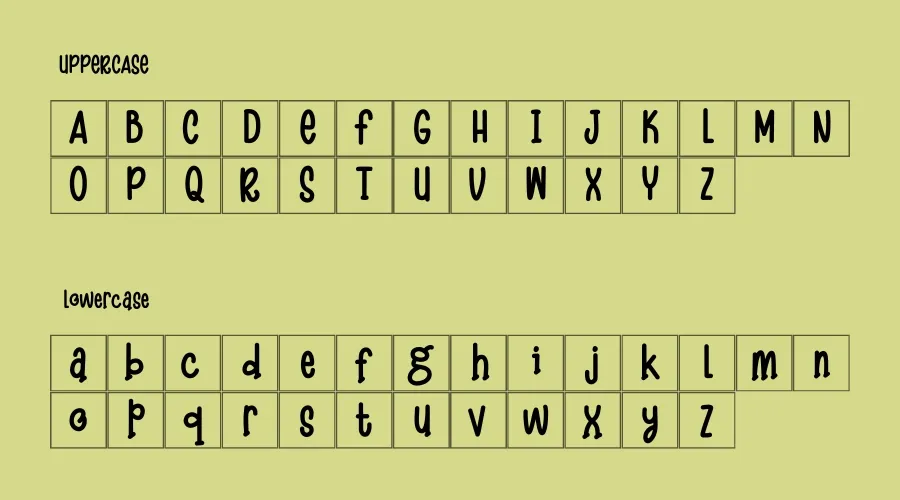
About Kidz Font
Almaz Studio created this text style it belongs to the Script family. If you need to have a special attractive design then you'll be able to match the typeface with the combination of another text style which could be an idealized choice to create amazing designs. It is accessible on both pc and Mac.
The typeface may be an incredible choice for any task that needs a touch of high class. There are a lot of corporations and organizations that use this typeface. Various institutions can use this font to create their logos. This typeface is very similar to the alfa slab one font.